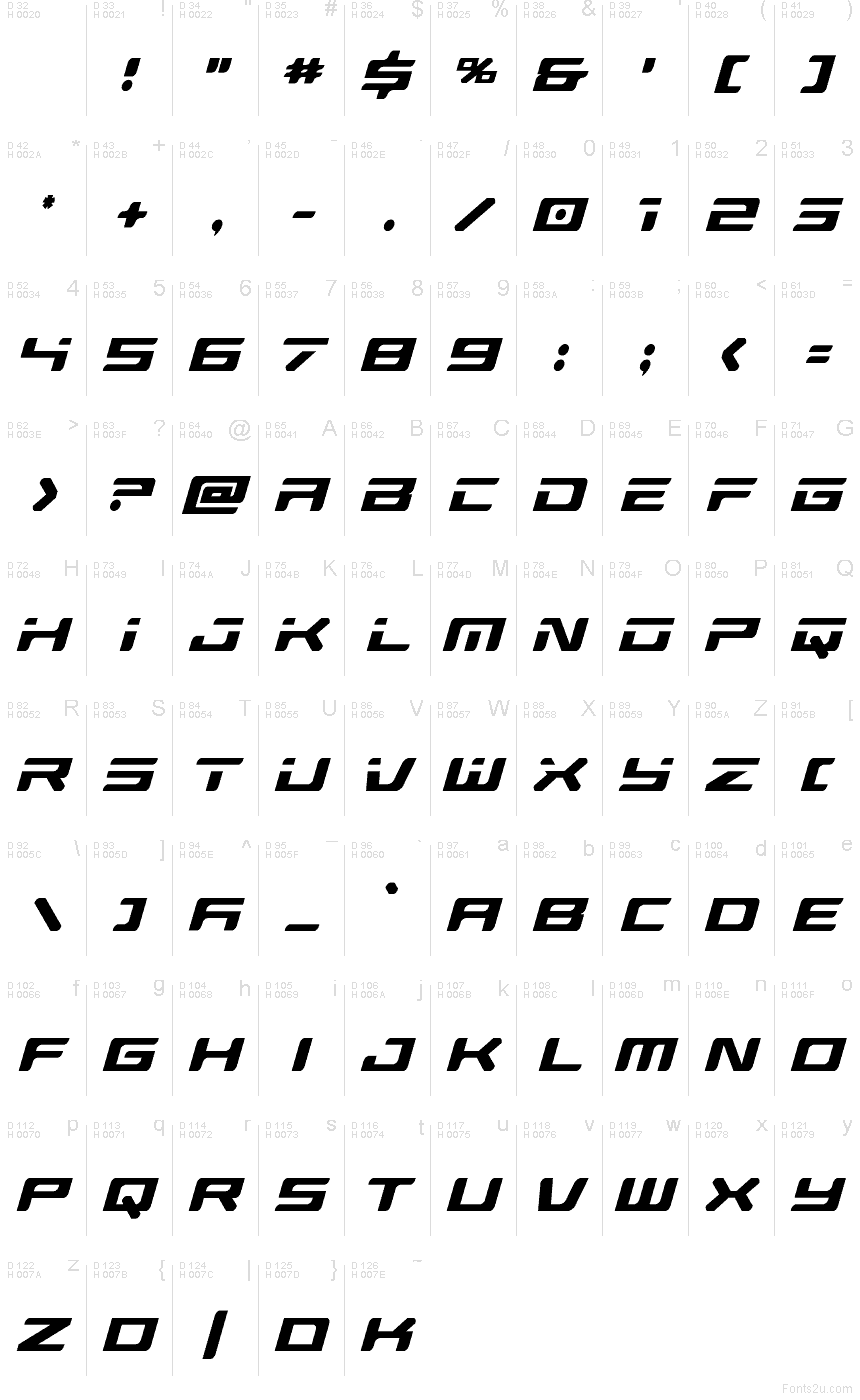
Race Pod Condensed Semi-Italic
Race Pod Condensed Semi-Italic font by Iconian Fonts is a free futuristic display typeface that looks like it’s been carved by wind and speed. Its tight, condensed forms, heavy weight, and sharp, chamfered corners create a sleek, aerodynamic rhythm that feels in motion even when standing still. The forward-leaning slant and smooth inner curves give headlines a slick, sci-fi racing vibe, like graphics streaking across a track or cockpit HUD.
Using Race Pod Condensed Semi-Italic, your titles instantly read as fast, competitive, and technical, which works beautifully for motorsport branding, esports logos, game titles, energy drink packaging, streaming overlays, and tech event posters. This free font thrives when set large with generous letter spacing, so it can breathe and show off its edges. For supporting text, pair it with a simple, open sans-serif to keep the focus on Race Pod’s high-octane personality.